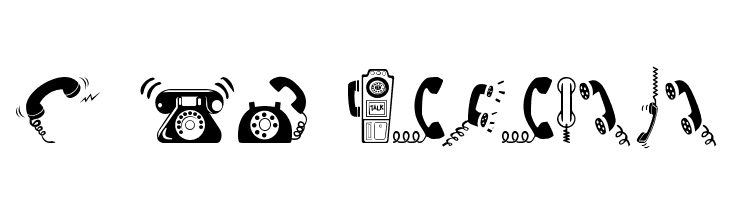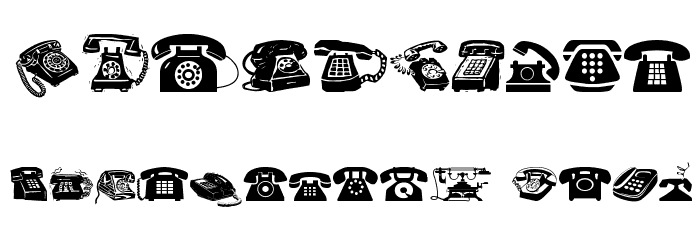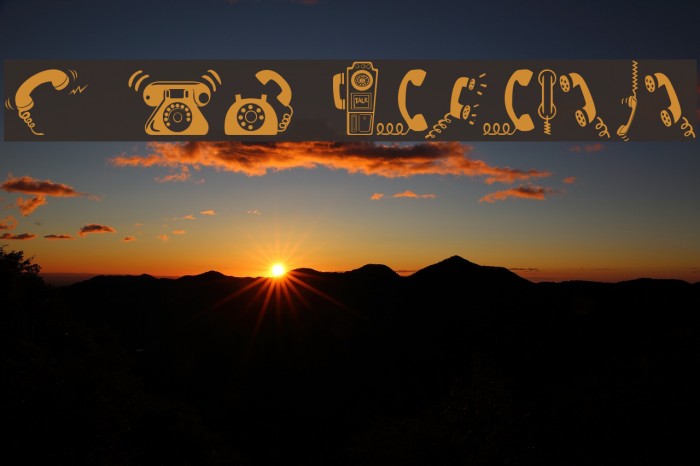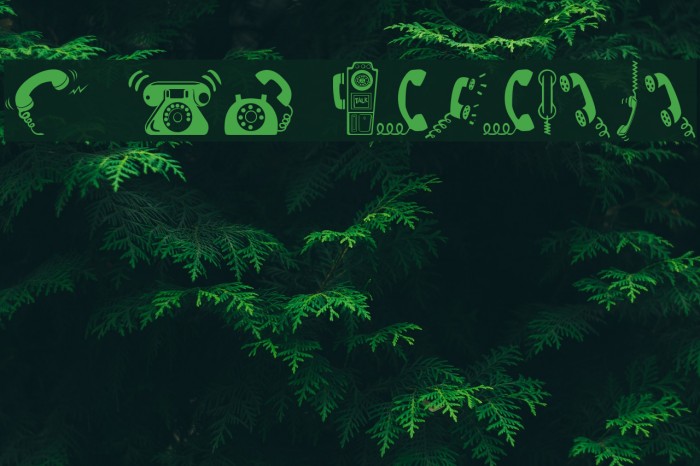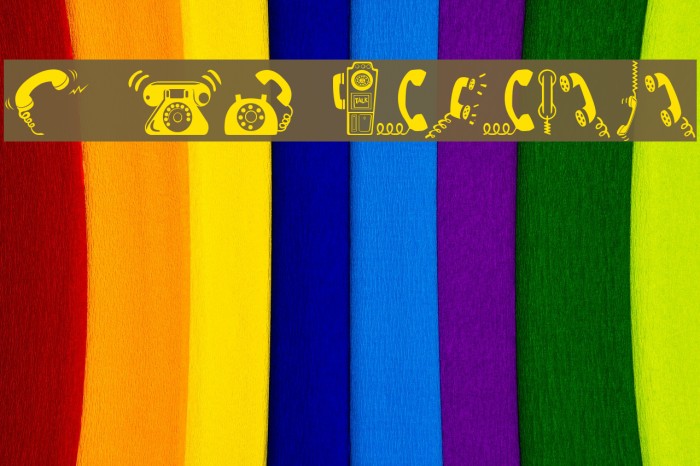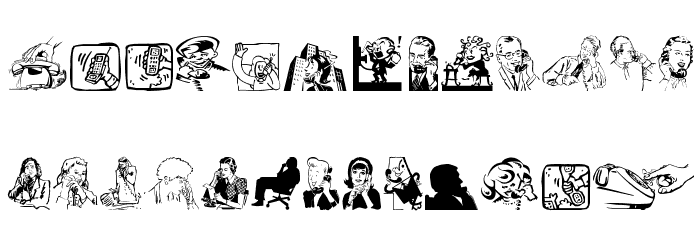
I AM TELEFONO Font
I AM TELEFONO Description
A decorative display font composed entirely of telephone and communication-themed illustrations, including vintage rotary phones, payphones, handsets, and people talking on phones, rendered in a bold, high-contrast black and white style. Each character is represented by a unique pictorial icon rather than traditional letterforms.
A pictorial display font featuring various telephone and communication icons from Uncategorized fonts.
- Proposed Projects: Posters, themed event invitations, educational materials about communication history, novelty headlines, retro design projects.
- Overall Style: Decorative, Retro, Thematic
- Use Case: Headlines, Posters, Themed Graphics, Educational Displays